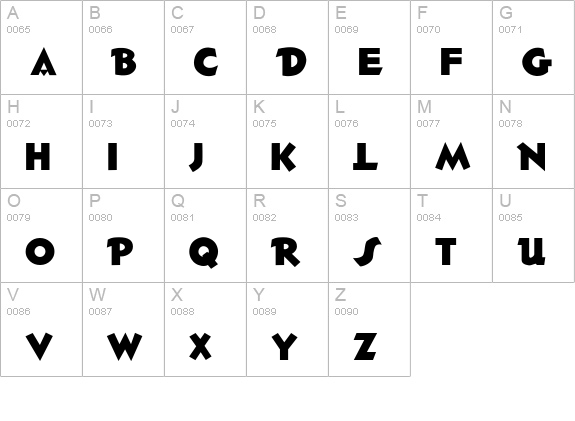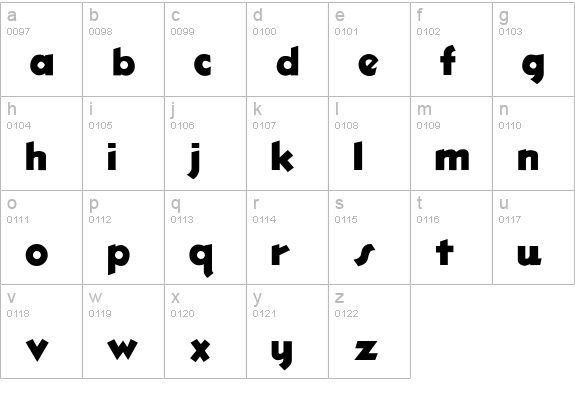
Bigshot Font Details
Introducing Bigshot font - a bold and dynamic typeface that commands attention with its strong and impactful presence. Inspired by the sleek and modern design trends, Bigshot combines sharp lines and geometric shapes to create a striking visual appeal. This versatile font is perfect for headlines, logos, posters, and any design project that calls for a touch of boldness. But here's the best part - Bigshot font is absolutely free for personal and commercial use! You can download this amazing font at FontsMarket.com and start using it in your projects right away. With its eye-catching style and easy readability, Bigshot font is sure to make a big impression wherever it's used. Don't miss out on this fantastic opportunity to add a touch of sophistication and style to your designs with Bigshot font. Download it now and let your creativity shine!